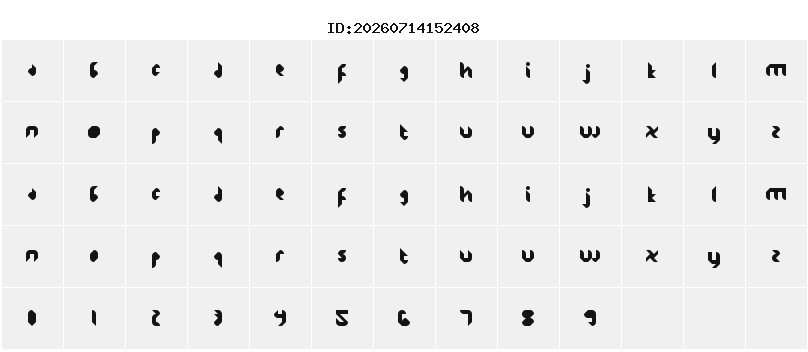
Jakarta Sunken Preview
• Font Name: Jakarta Sunken
• Font ID: FontStruct Jakarta Sunken
• Full Font Name: Jakarta Sunken Regular
• PostScript Name: Jakarta-Sunken
• Character Count: 85
• Designer: Adien Gunarta
• Description: “Jakarta Sunken” was built with FontStruct
About Jakarta Sunken.ttf
Jakarta Sunken.ttf is a modern, elegant sans-serif font designed for ultimate readability and visual harmony. Perfect for branding, headlines, web design, and print materials.